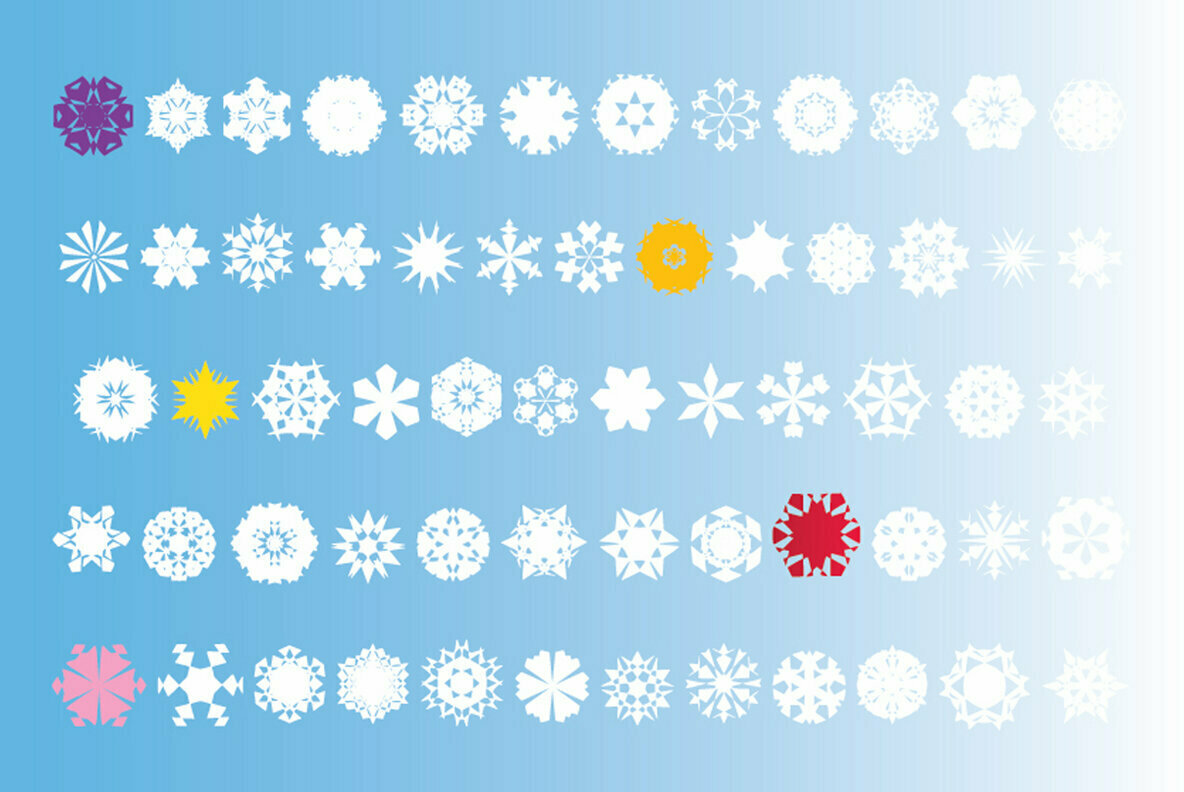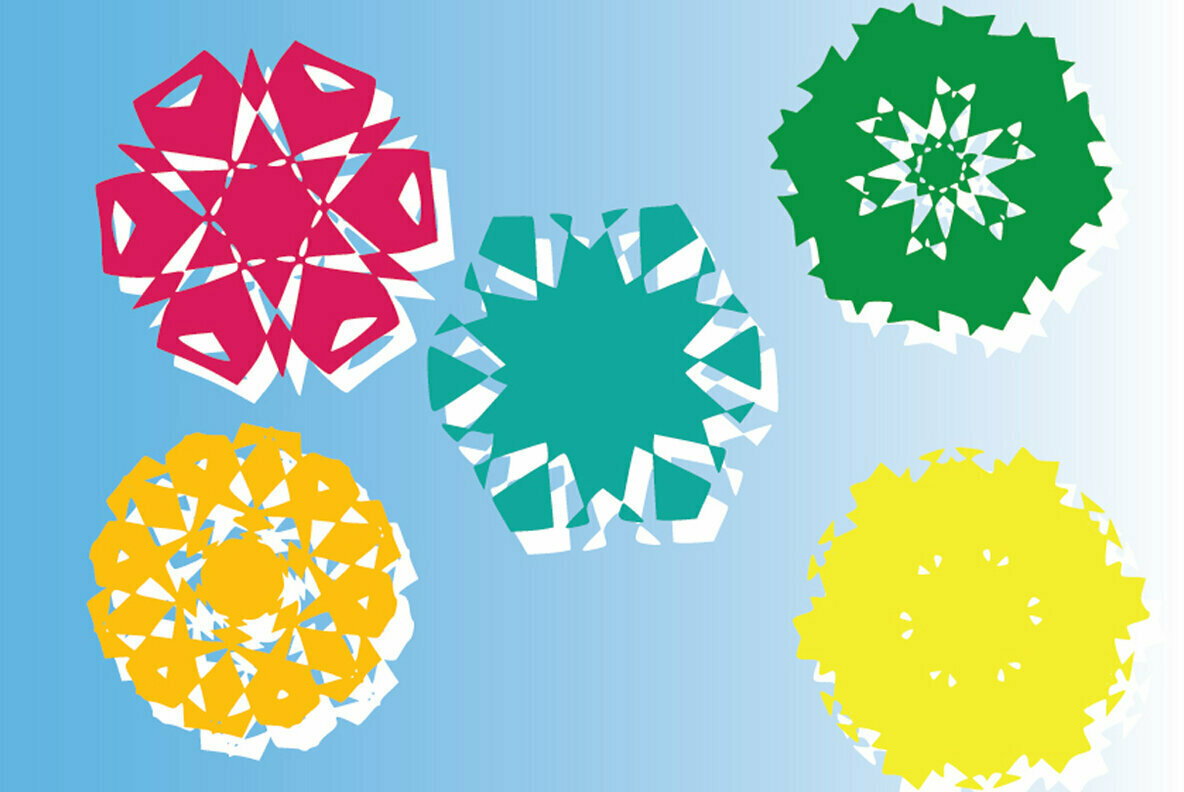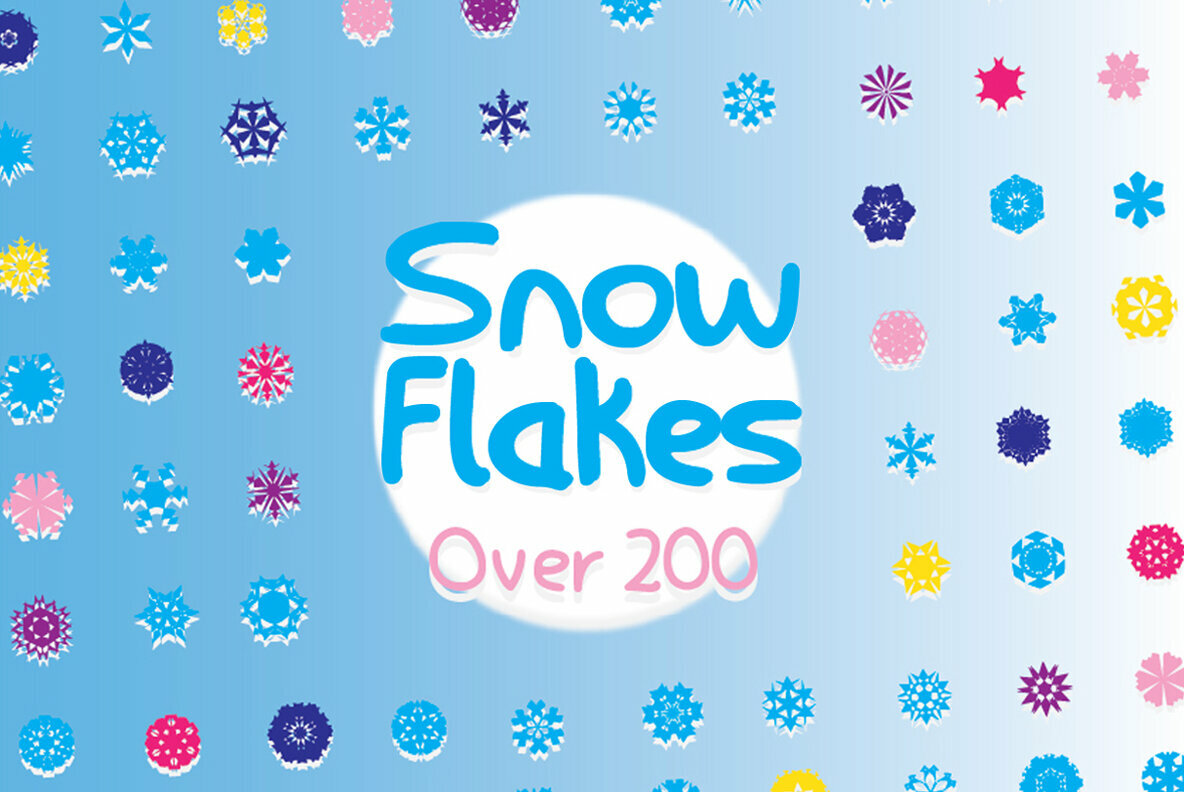
Paper Snow Flakes Font
Paper Snow Flakes
Christmas time is the perfect excuse to utilize these beautiful 200 plus paper style snowflakes – enough to get any design in the festive spirit!